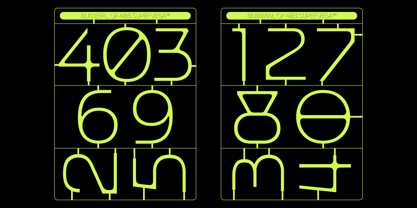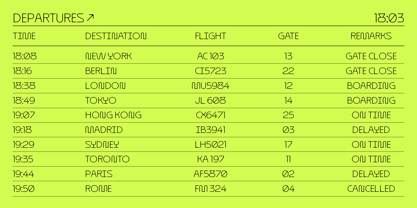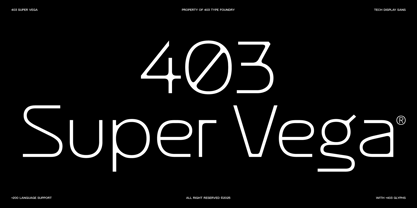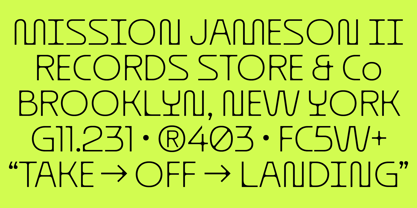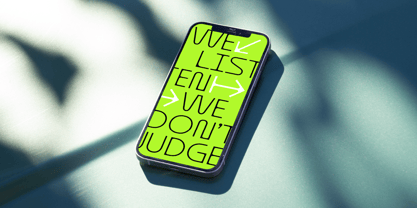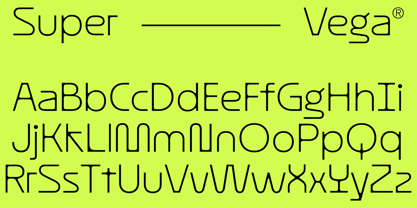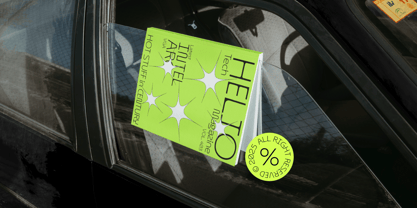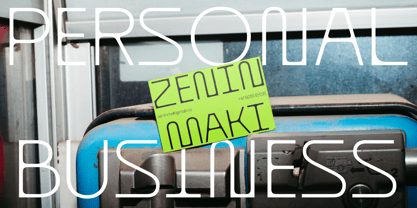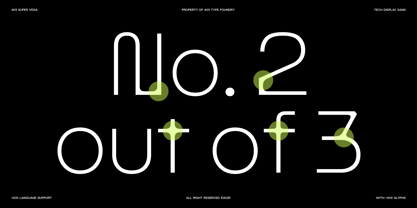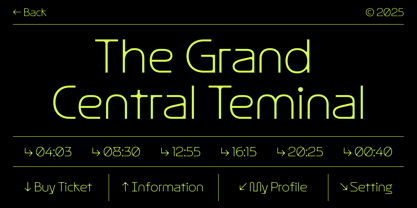
403 Super Vega
by 403TF
The 403 Super Vega Font Family was designed by Umar Al Farouq, Jodi El Ghazi, Febri Riansah and published by 403TF. 403 Super Vega contains 2 styles and family package options.
403 Super Vega is a sleek, contemporary typeface with a geometric, futuristic look that is ideal for making striking statements in the creative, tech, and sci-fi sectors. Its rounded, balanced letterforms and thin, monolinear strokes give it a crisp, modern look, and distinctive nuances in letters like "k," "y," and "g" give it individuality and charm. This typeface is perfect for editorial titles, headings, and logos because it is quite readable at higher sizes. Super Vega is a terrific option for forward-thinking brands and experimental designs because it is designed to stand out and adds a cutting-edge, imaginative vibe to any project.